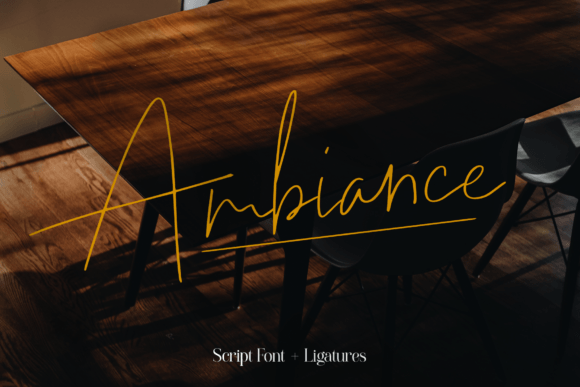
Prepare yourself to embark on a transformative typographic journey with Ambiance Font, a captivating script font that exudes elegance and sophistication. This ligature-rich masterpiece is meticulously crafted to elevate your designs, leaving an unforgettable impression wherever it graces.
With its signature calligraphy style, Ambiance Font captivates audiences with its graceful curves and sweeping strokes. It's the perfect choice for creating captivating logos that demand attention. The font's exaggerated capital letters command presence, ensuring your message stands out in the digital landscape.
But Ambiance Font's versatility doesn't stop there. It also shines as a complementary font, seamlessly blending with sans-serif and serif typefaces. Its delicate brush-like texture adds a touch of charm and personality to any design.
Whether you're a seasoned designer or just starting your creative journey, Ambiance Font is an essential tool in your arsenal. Its intuitive nature makes it easy to use, and its compatibility with various design software ensures seamless integration into your workflow.
Experience the allure of Ambiance Font today and unlock endless possibilities for your creative endeavors. Add this exquisite script font to your collection and let your designs speak volumes, leaving a lasting imprint on your audience.